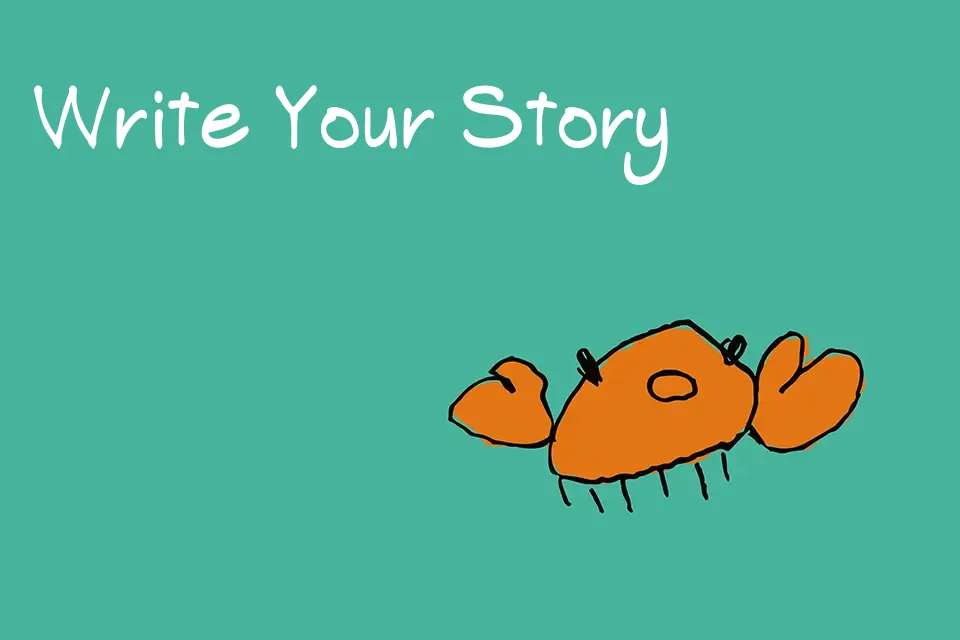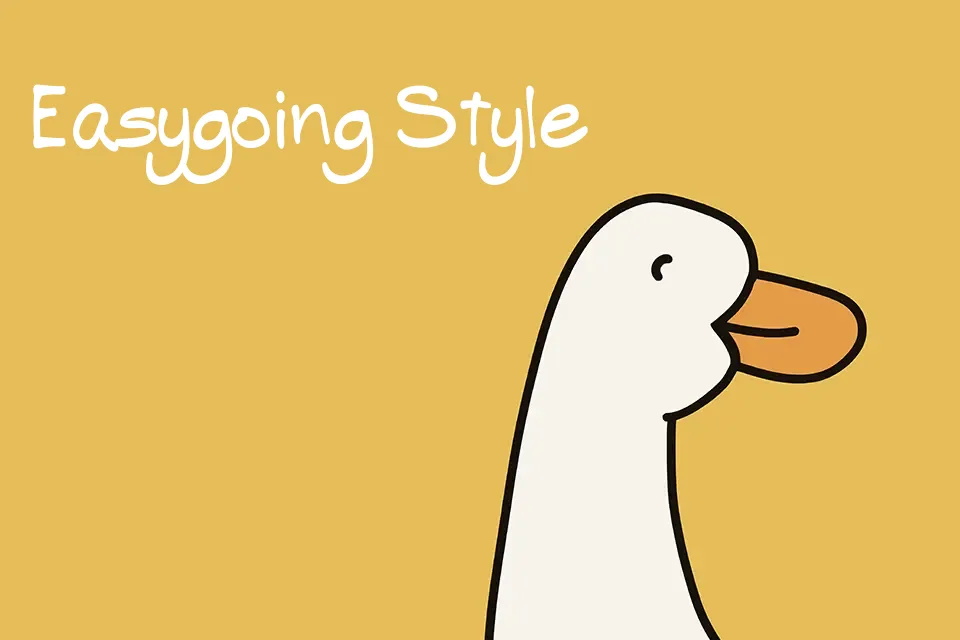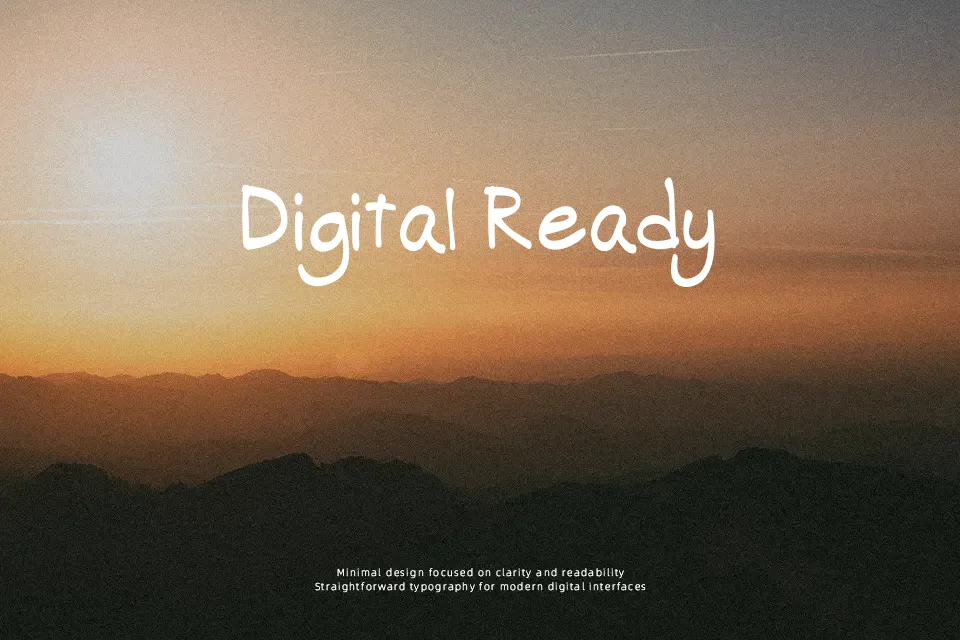
SP Casual Font
SP Casual Font uses thick, rounded forms with an intentionally loose, hand-drawn feel. Its letters have soft curves, varied proportions, and relaxed spacing that give short words a lively, informal rhythm. The broad strokes remain clear in large headlines and simple graphic applications, while the irregular construction adds a cartoon-like tone. It works best when the text is brief and given room to stand out, such as on posters or product labels. The playful shapes become less controlled in compact settings, so small captions and continuous reading are less comfortable.
Best For: children’s event posters,playful product packaging,casual social media graphics,informal headline text
Perfect for headline, kids, and packaging, with a bold and comic style.